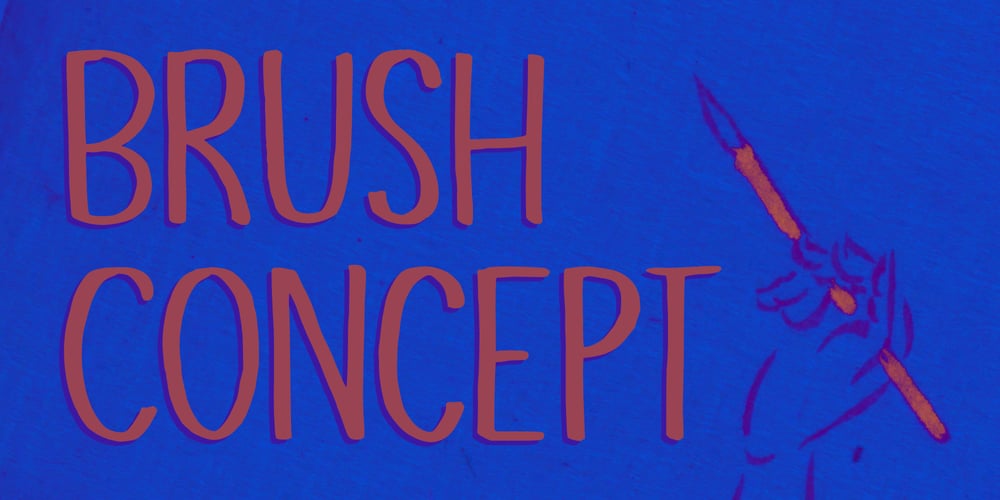
Brush Concept Font Family was designed by David Kerkhoff and published by Kitchen Table Type Foundry. Brush Concept contains 2 styles and family package options. A long time ago, I bought a pack of Japanese brush-pens. I used them for a while, but then I moved house, renovated it, sold it and moved again, so the pens got stuck in some box. A week ago I found one – by accident, I was looking for an actual brush – and decided to use if for a font.The result is Brush Concept: a nice and even, sophisticated brush font that comes with extensive language support and a set of contextual alternates.